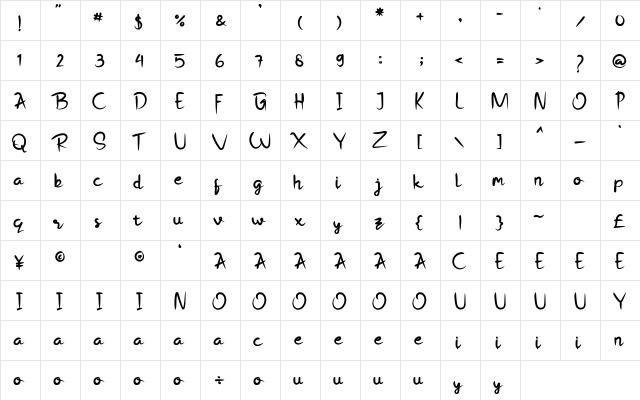
Bigswash Regular
Design Context for Bigswash Typeface
Bigswash flows with the natural rhythm of handwritten lettering, making it ideal for designs that call for warmth and personal expression.
Font Pairing: Combine Bigswash with a simple geometric sans for maximum contrast — the tension between flowing curves and clean structure is a classic typographic pairing.
Pro Tip: Use Bigswash for short runs of text — names, titles, or taglines. Extended body copy in script faces tires the eye quickly.